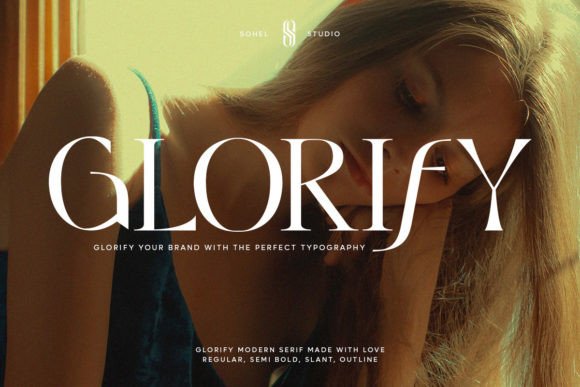
Journey into the realm of typography with Glorify Font, a creation of Sohel Studio, where elegance and grace intertwine. Glorify's inherent charm lies in its striking contrast between bold and delicate strokes, evoking a sense of timeless grandeur. Its serif structure exudes an air of sophistication, making it an ideal choice for luxury branding, invitations, and editorial design. With every character you type, Glorify adds a touch of refinement, elevating your designs to new heights.
Glorify is not just a font; it's an experience that awakens your creativity and ignites your passion for visual expression. Its PUA-encoded nature grants you effortless access to a treasure trove of glyphs and swashes, empowering you to unleash your imagination and craft designs that captivate and inspire.
Whether you're a seasoned designer or just starting your creative journey, Glorify Font is your perfect companion. Its versatility extends to a wide range of projects, from elegant logos and stunning posters to eye-catching social media graphics and captivating presentations. With Glorify, your designs will radiate sophistication and leave an unforgettable impression on your audience.
Embrace the allure of Glorify Font and unlock the potential for greatness within your creative endeavors. Dive into the world of typography with Glorify and experience the joy of creating designs that truly shine.